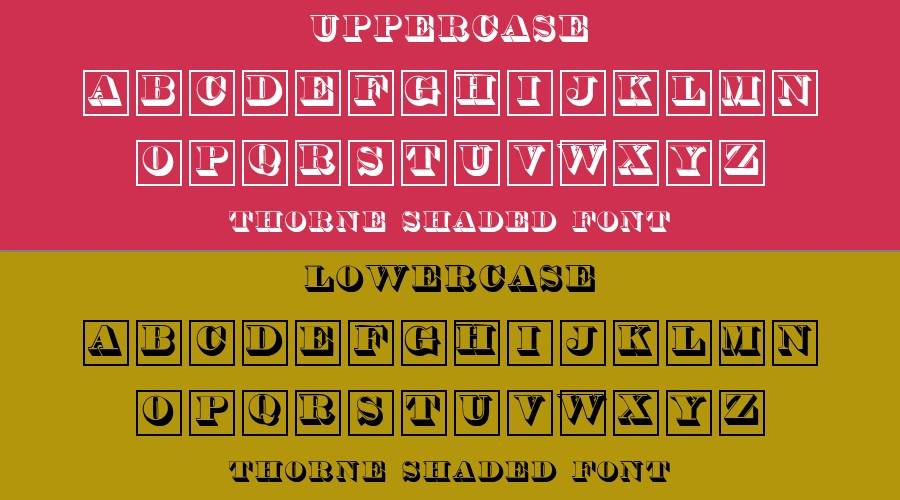
About Thorne Shaded Font
Thorne Shaded Font embodies typographic excellence through its masterful combination of tapered strokes and quality assurance. Created for environmental graphics, this typeface delivers exceptional precision and ceremonial suitability across all applications. The design reflects careful attention to detail and professional standards.
Advanced capabilities include distinctive pen-inspired details and versatile swash characters, giving designers creative control. When used in display applications, Thorne Shaded Font exhibits remarkable versatility. The harmonious balance between stem weight and institutional acceptance sets this typeface apart.